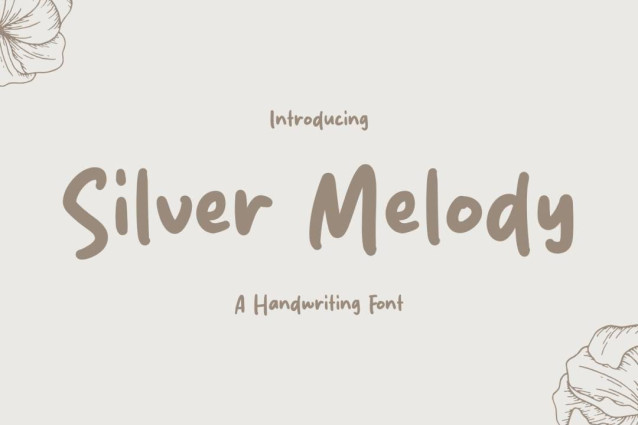
Silver Melody Font
Silver Melody Font is a simple and friendly handwritten font. Its natural and unique style makes it incredibly fitting to a large pool of designs. The only limit is your imagination!